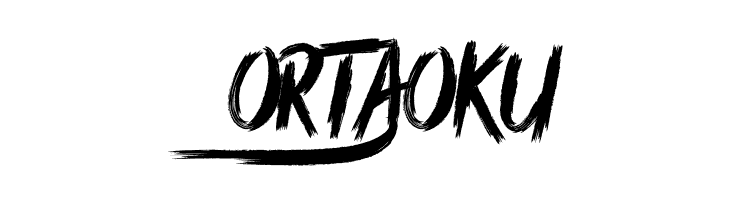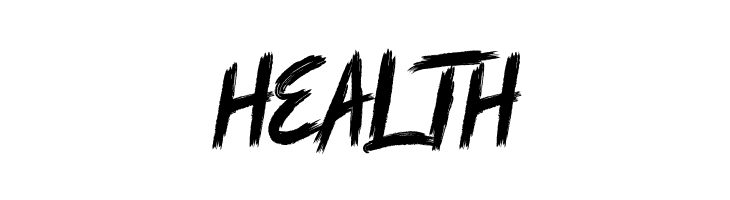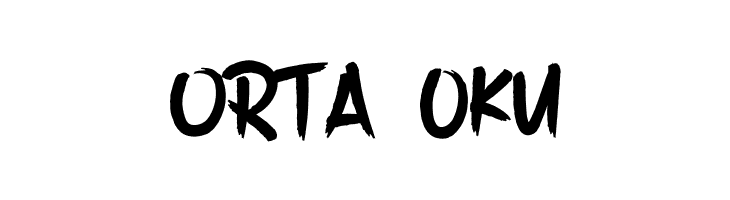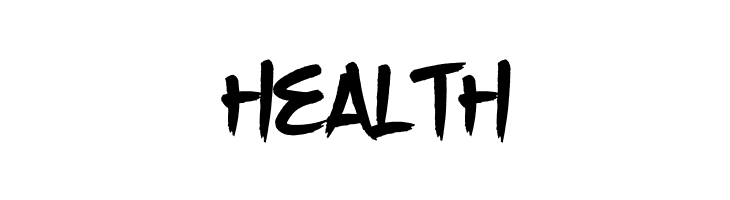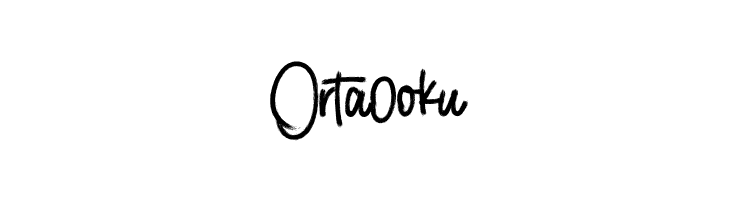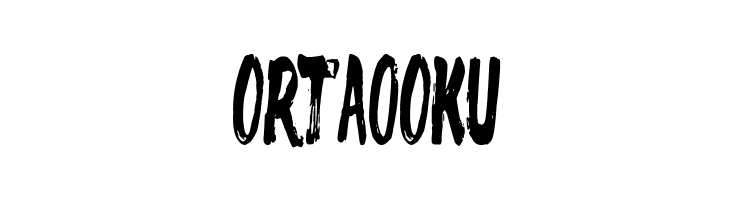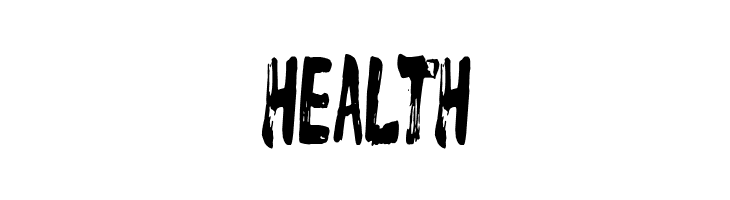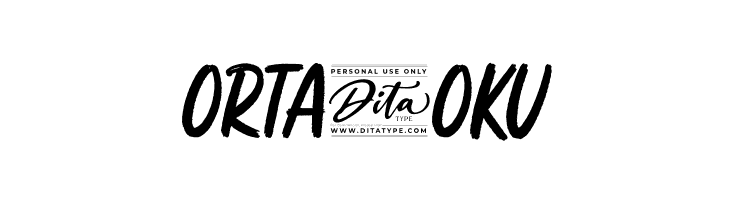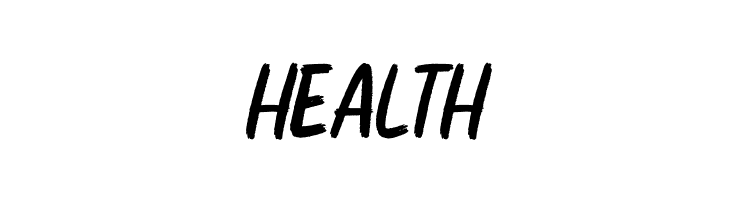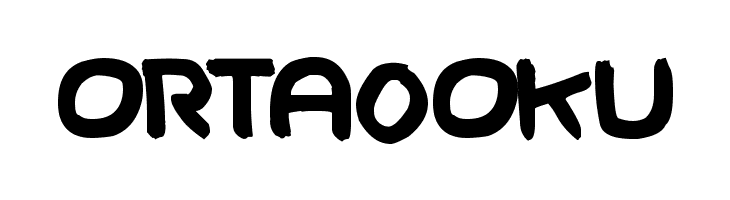
A bold, brush-style font with a rough, artistic texture.
A bold, italic brush-style font with a rough, hand-drawn appearance.
A dynamic script font with a rough, brush-like texture and flowing cursive style.
A bold, hand-painted brush font with a rustic, textured style.
A bold, brush-style font with dynamic, hand-painted strokes.
A playful, handwritten font with dynamic strokes and a casual appearance.
A bold, brush-style font with dynamic, handwritten characteristics.
A dynamic brush script font with elegant, flowing strokes and artistic flair.
A bold, brush-style font with an energetic, hand-painted look.